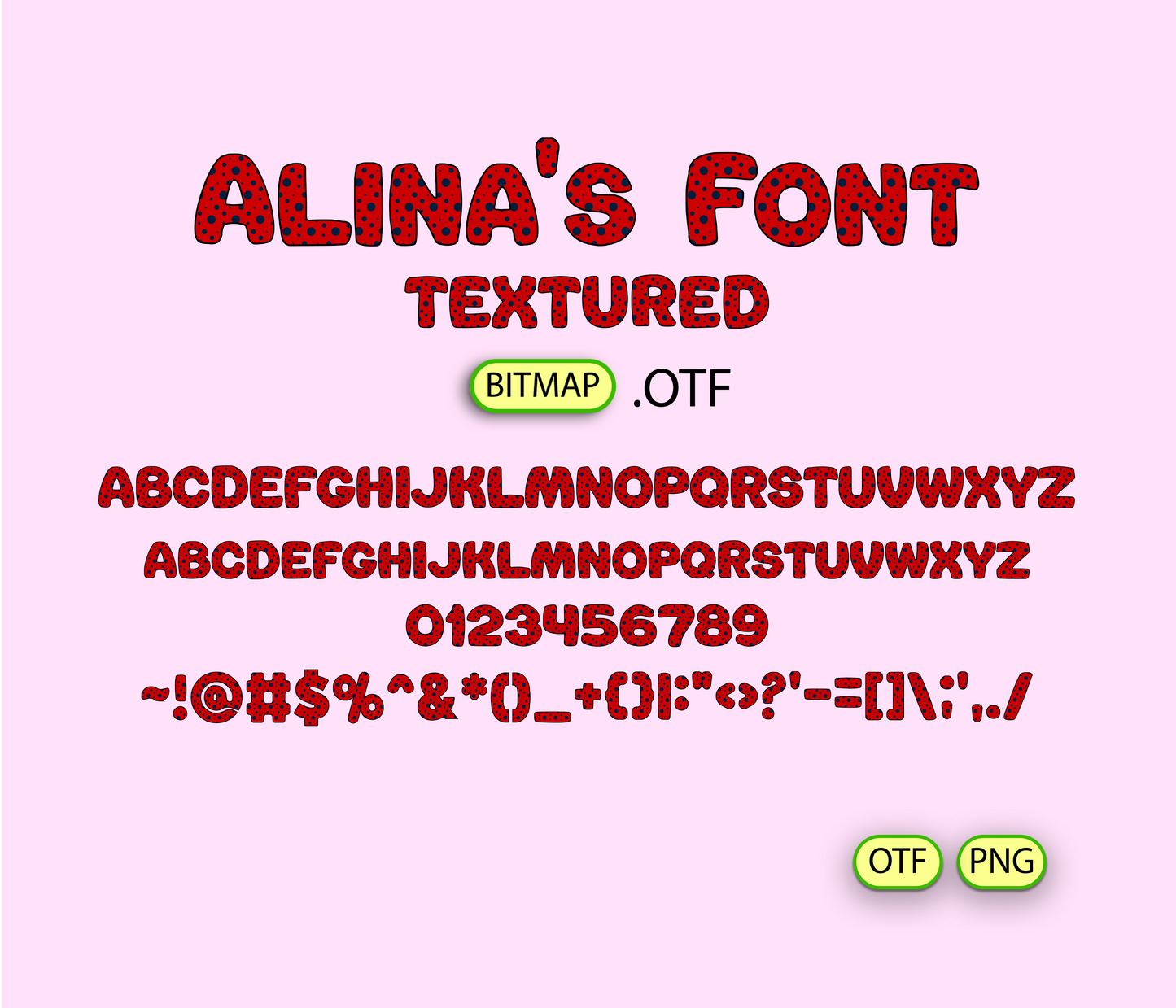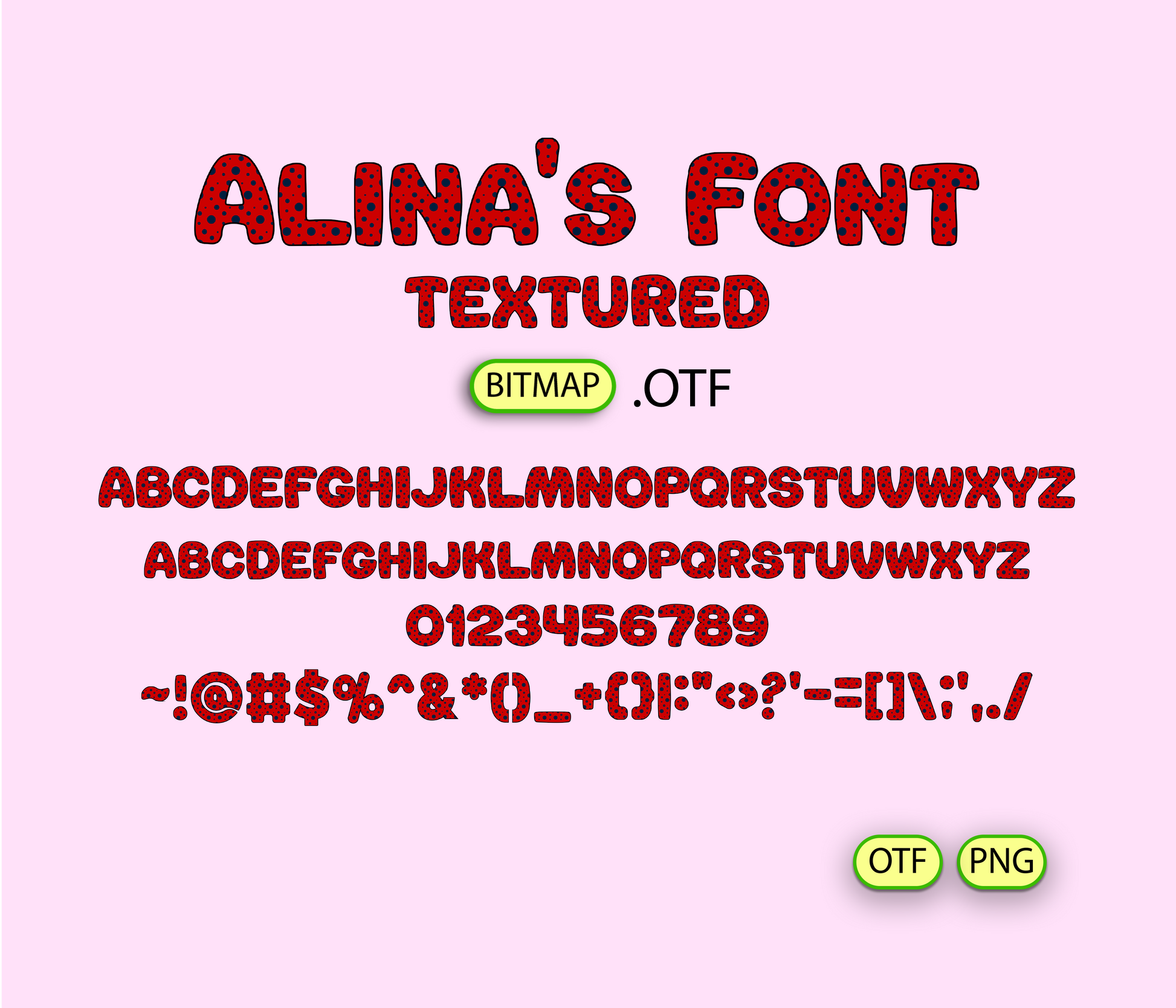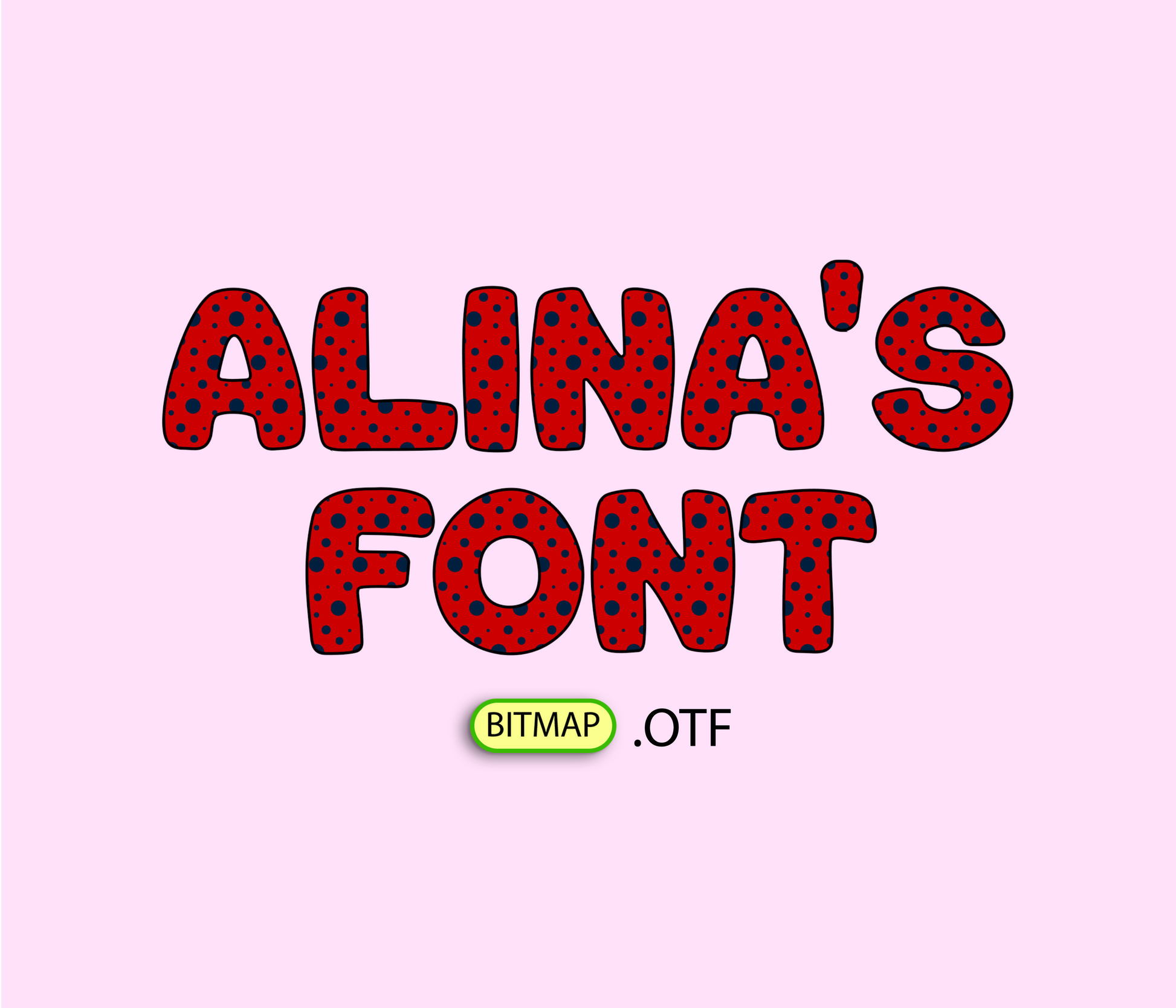
Ladybug Pattern Font
Ladybug Pattern Font Textured
What Font is Ladybug Font?
Envision a typeface that beautifully combines the charm of ladybugs with the functionality of modern typography. Our Ladybug Pattern font is meticulously designed to capture the whimsical and vibrant spirit of ladybugs, with a focus on playful shapes and nature-inspired aesthetics. It includes an extensive character set, featuring alphabets, numbers, and special symbols, providing a versatile toolkit for a wide range of design projects, from children's content to nature-themed branding.
What Can You Do With Ladybug Font?
The Ladybug Pattern font is versatile and perfect for various creative and engaging applications:
- Children's Book Design: Ideal for adding a fun and engaging touch to storybooks, educational materials, or children's publications.
- Themed Event Invitations: Create charming invitations for garden parties, nature-themed events, or children's birthdays.
- Merchandise and Apparel Design: Perfect for designing clothing, accessories, and merchandise that appeals to children and nature lovers.
- Digital Content and Social Media: Use the font to add a playful and natural element to websites, blogs, and social media posts.
- Educational Materials: Incorporate the font into teaching resources to captivate and educate young learners about nature and insects.
- Greeting Cards and Stationery: Design personalized stationery, greeting cards, or gift tags with a ladybug theme.
- Promotional Materials: Use in marketing and advertising for products or services related to gardening, nature, or children's activities.
- Interior Decor: Create wall art, decals, or signage for children's rooms, nurseries, or educational spaces.
- Event Signage and Decor: Develop eye-catching signs and decorations for themed events, fairs, or garden exhibitions.
- Creative Art Projects: Ideal for crafting, scrapbooking, and artistic projects inspired by the beauty of ladybugs.